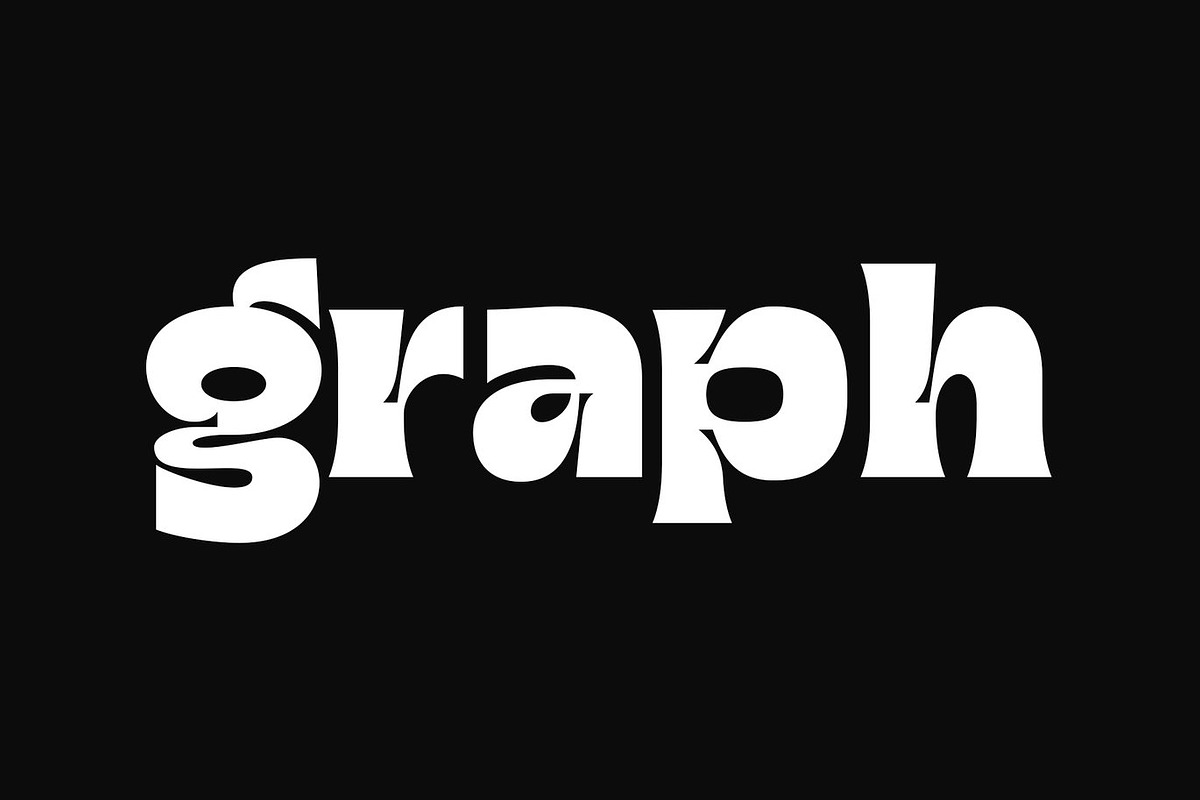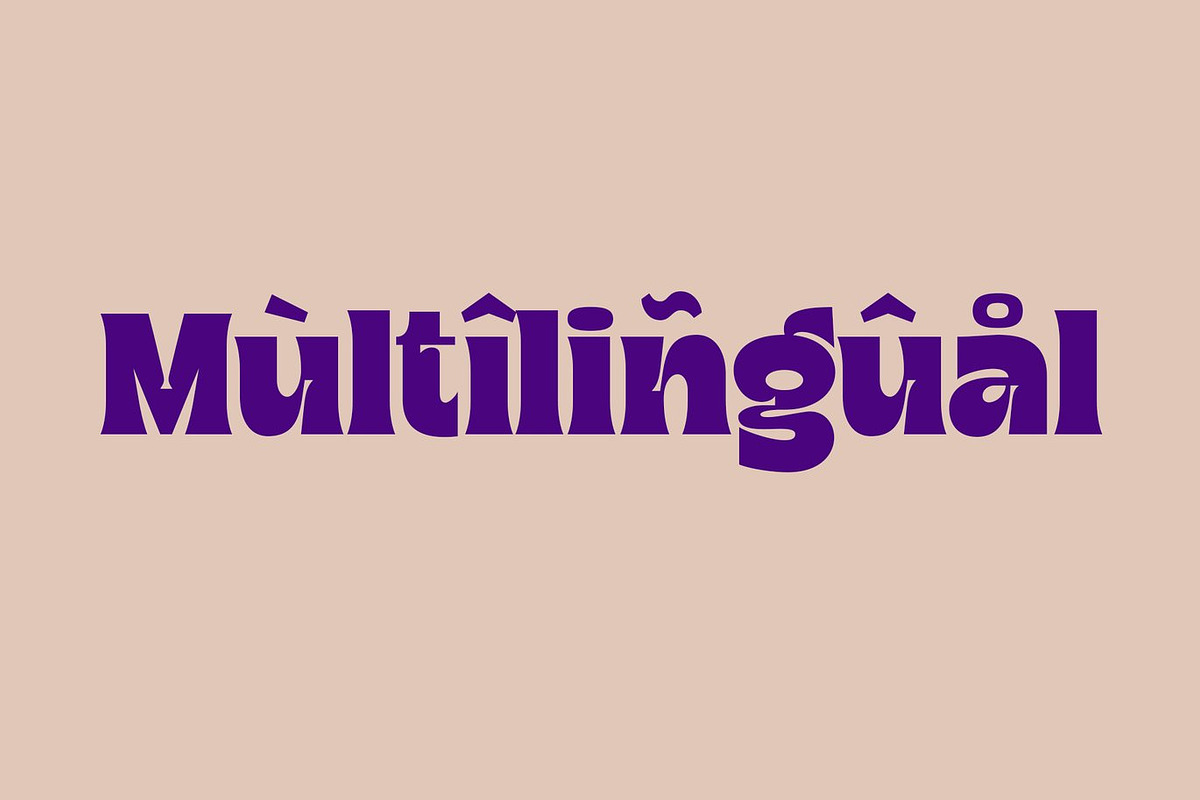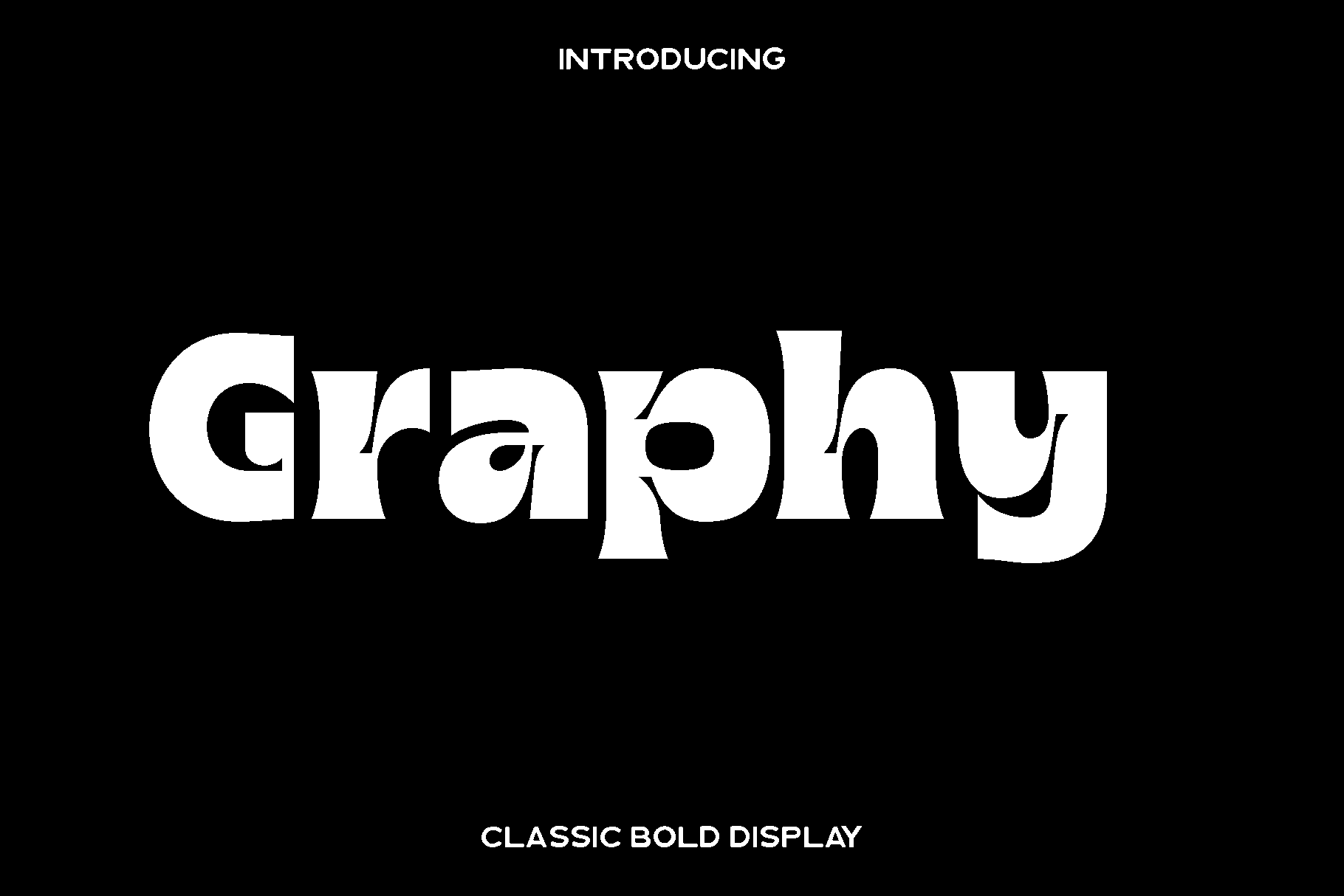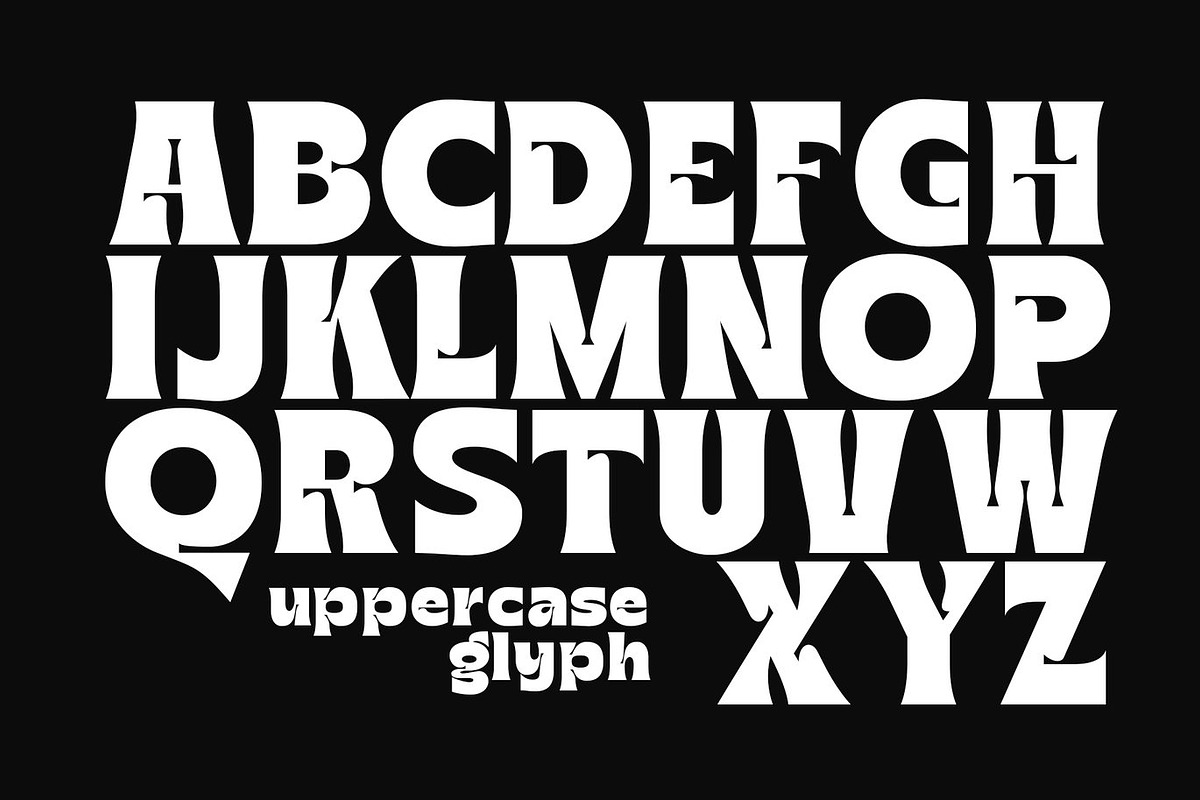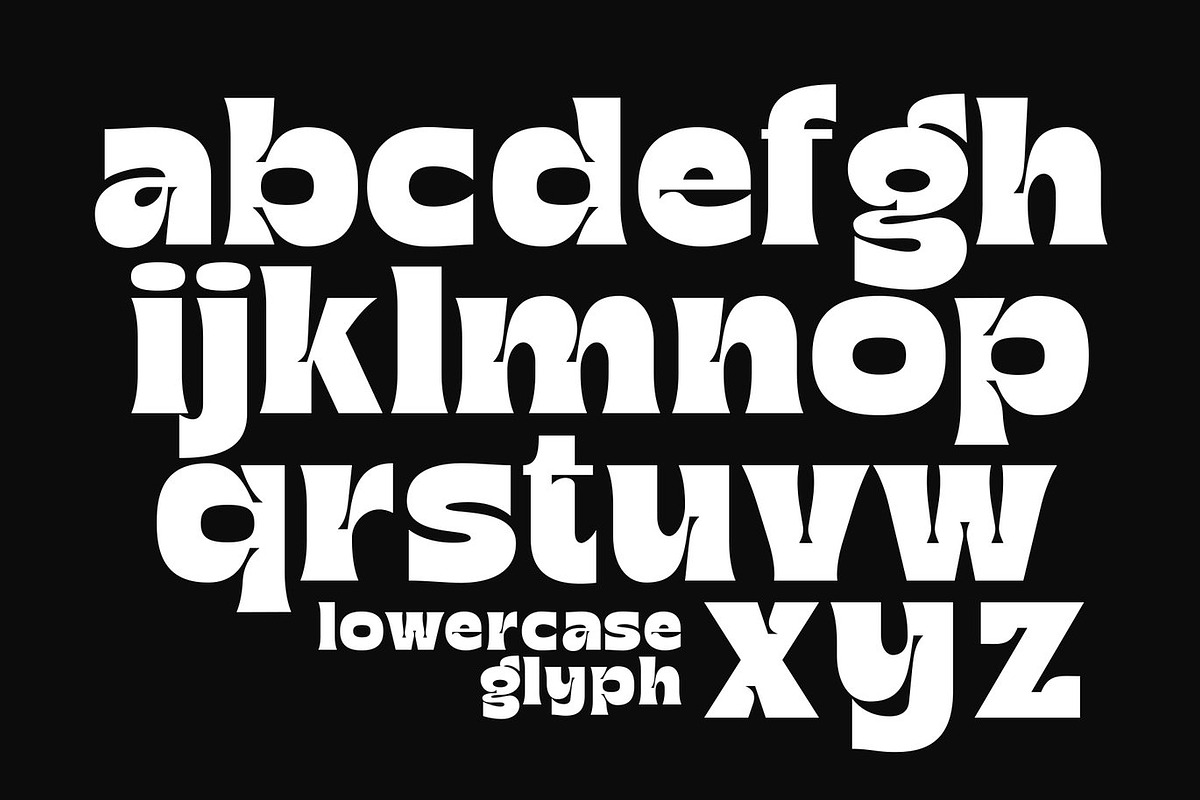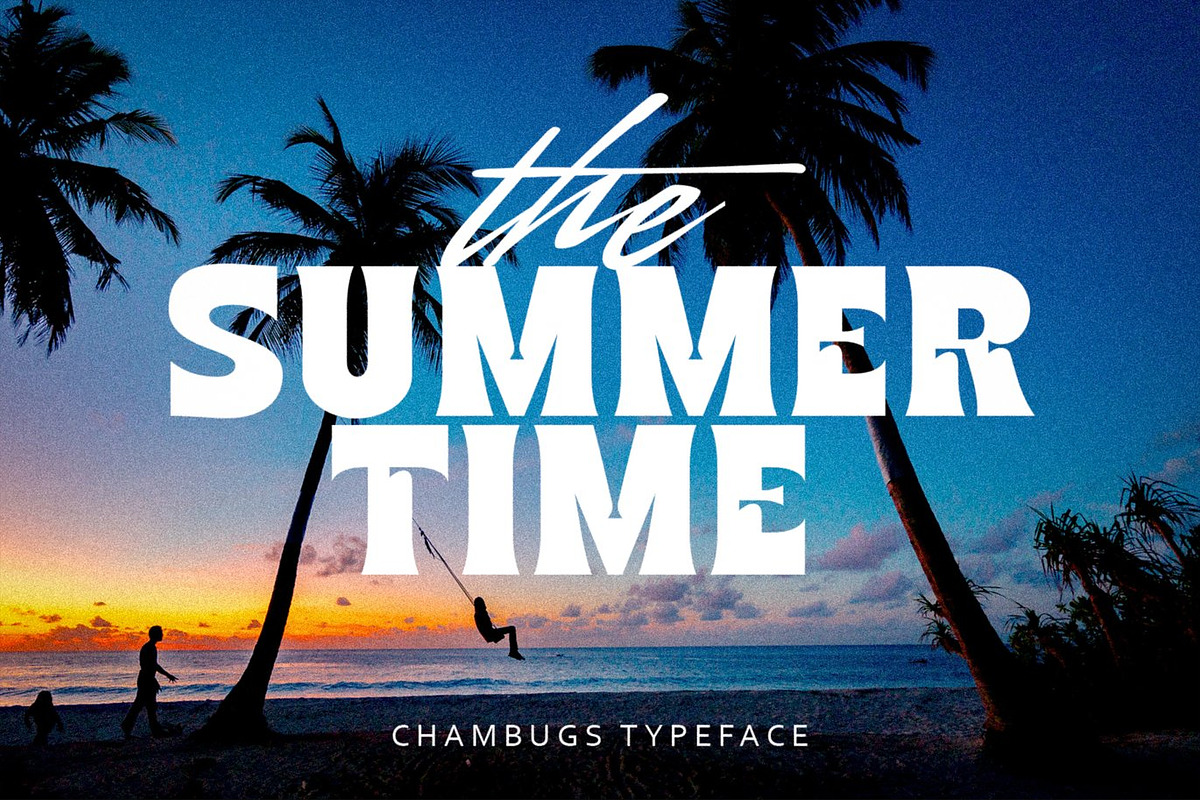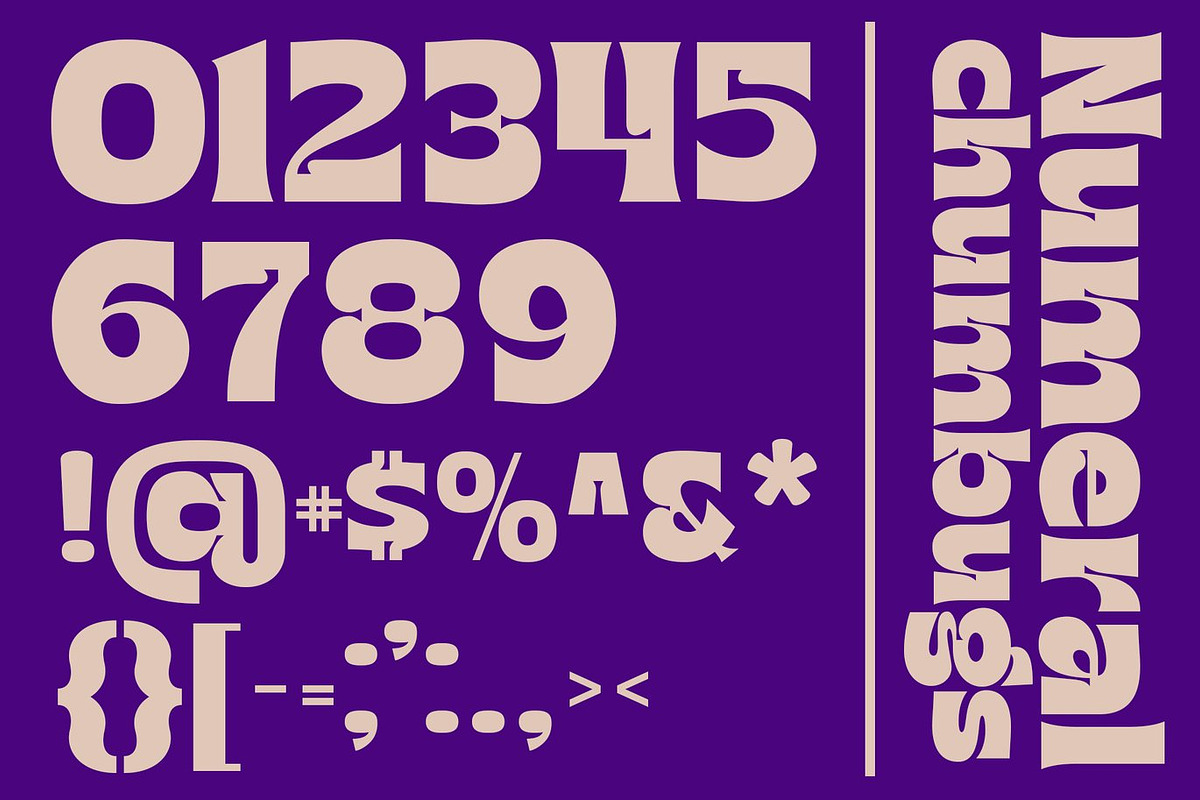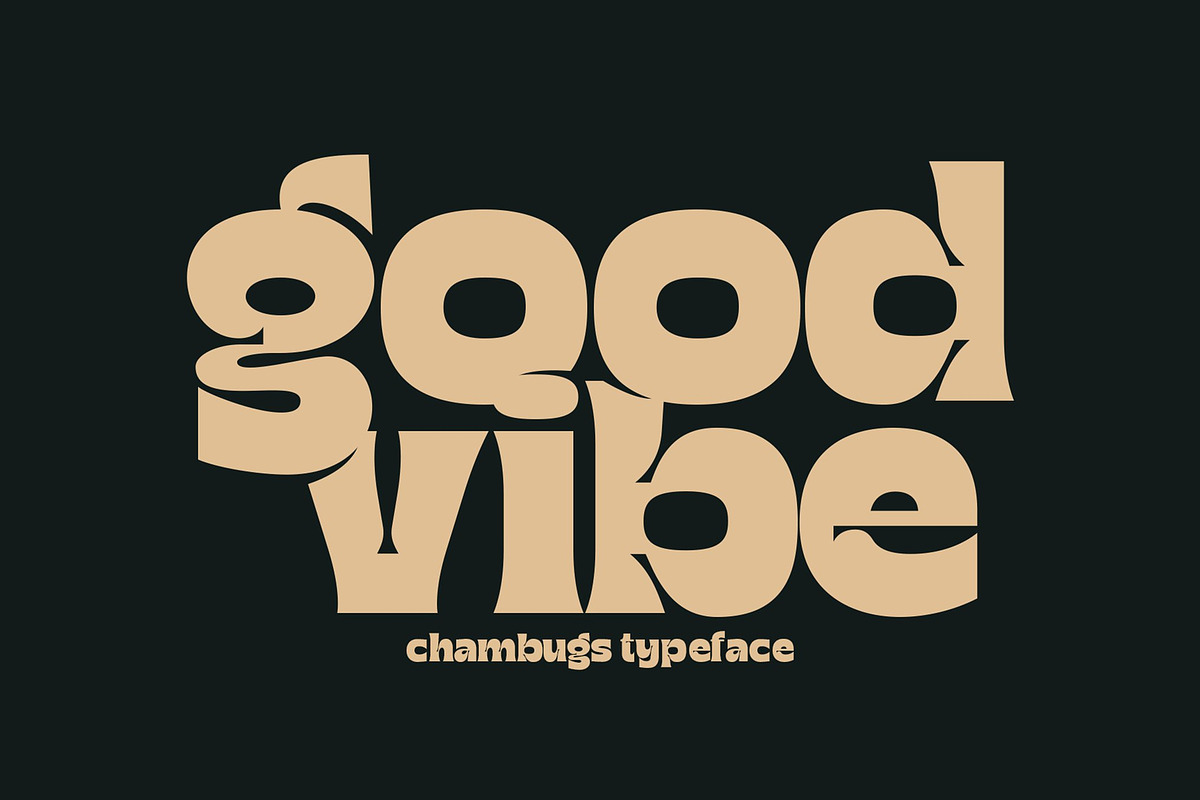
Graphy - Vintage Bold Font
Graphy is a bold display font inspired by classic typography and timeless vintage design. Created to bring strong character and nostalgic charm into modern visuals, Graphy reflects the spirit of old signage, traditional printing, and retro branding while remaining clean and versatile for today’s design needs. Its confident letterforms and solid construction give every word a powerful presence that instantly draws attention.
This font shines in projects that require impact and personality. Graphy is an excellent choice for logos, branding identities, posters, packaging, labels, apparel designs, headlines, and promotional graphics. Its bold vintage feel adds warmth, authenticity, and a sense of craftsmanship, making designs feel both memorable and trustworthy.
Graphy feels strong, expressive, and classic. It is designed for creators who want to communicate heritage, confidence, and bold style through typography. Whether used in print or digital formats, Graphy maintains readability while delivering a distinctive visual voice that stands out in crowded designs.
Graphy Classic Vintage Font Features:
• Uppercase and lowercase characters
• Numerals and functional punctuation
• Bold display style with vintage character
• Multilingual support
Graphy is a versatile display font that blends retro inspiration with modern usability, making it a valuable addition to any designer’s font collection.